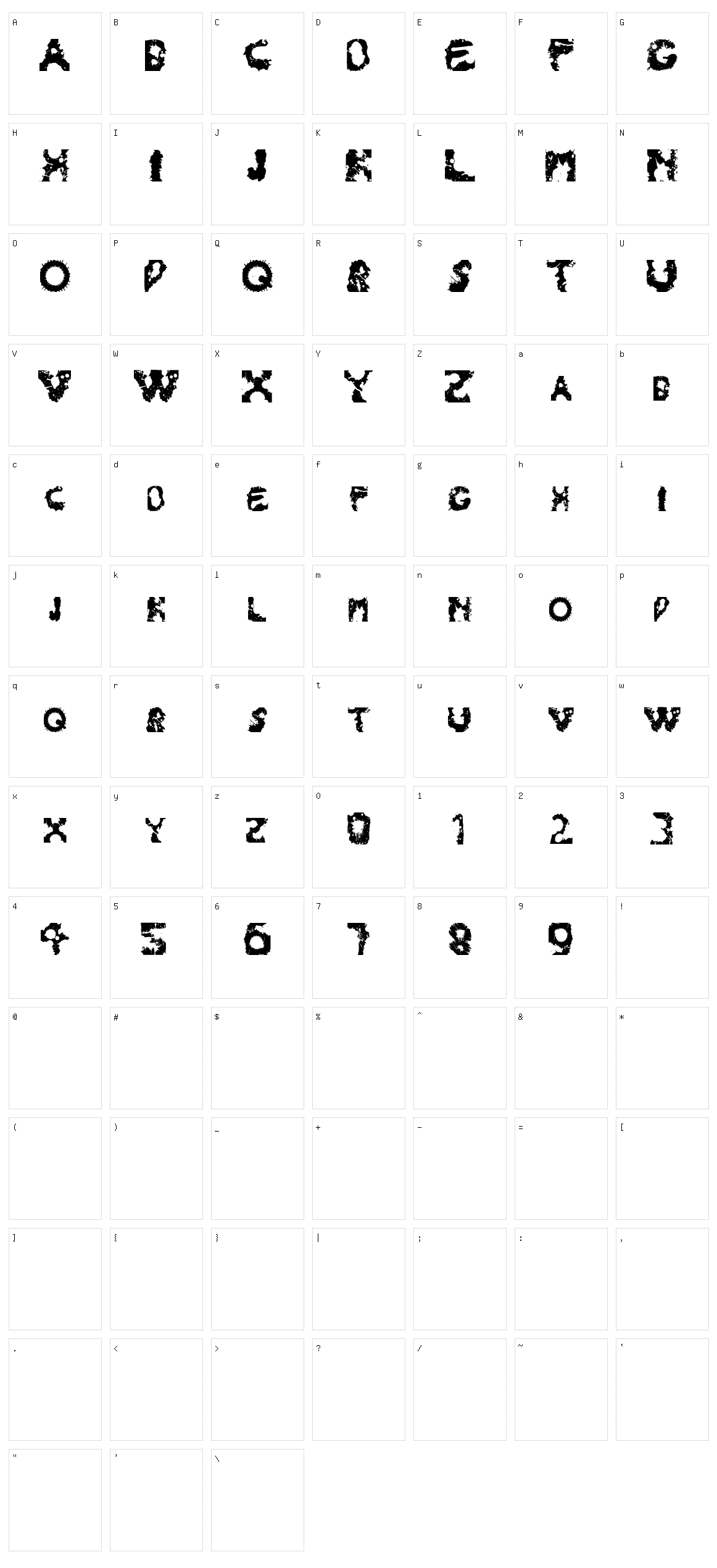
The free font Splash 180 is carefully designed by domenico_cristallo, showcasing a thoughtful balance of creativity and usability and falls under the Destroy font style. When you download the ZIP file, it contains only 81.5 KB of font files, making it lightweight and quick to download. Please review the license details below to understand permitted usage and distribution rights. If license information is not available, we recommend using this font for personal projects only or contacting the author directly for commercial usage permissions.